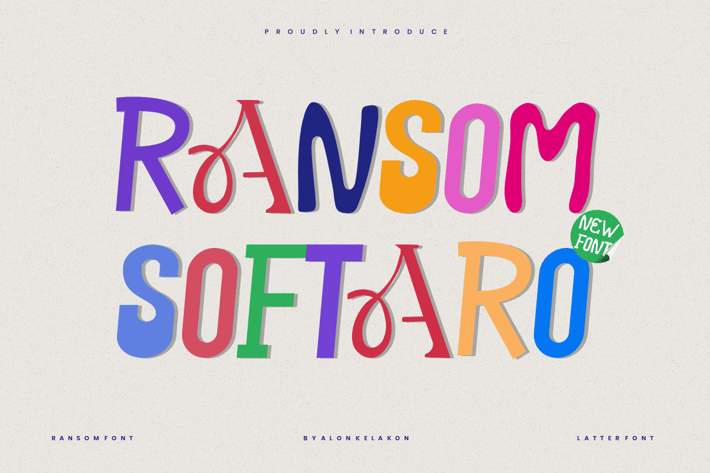
Ransom Softaro - Ransom Letter Cut Font
Ransom Softaro Font is unique . Ready to use for your design like labeling, movie sceen, poster, movie title, gigs, album covers, logos, and much more.